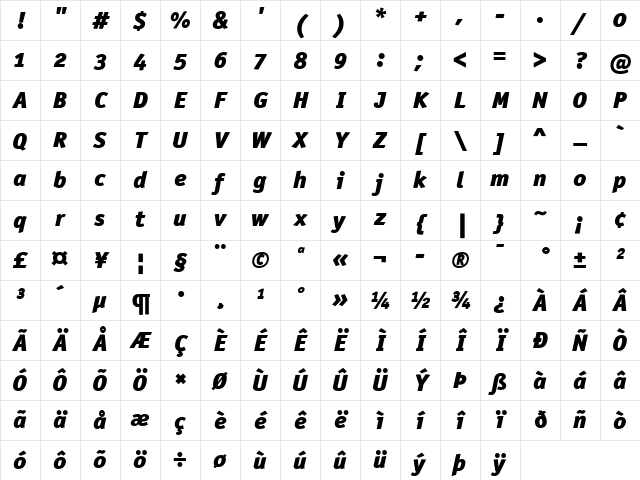
Complete OfficinaSanITC Black Italic glyph index. Displaying only characters natively supported by OfficinaSanITC Black Italic font.
OfficinaSanITC is a composed and adaptable typeface that performs quietly and consistently across a wide range of design contexts. The slanted form adds forward momentum and visual energy.
Pro Tip: Use OfficinaSanITC for emphasis, pull quotes, and subheadings where its slanted energy can add rhythm to the layout.